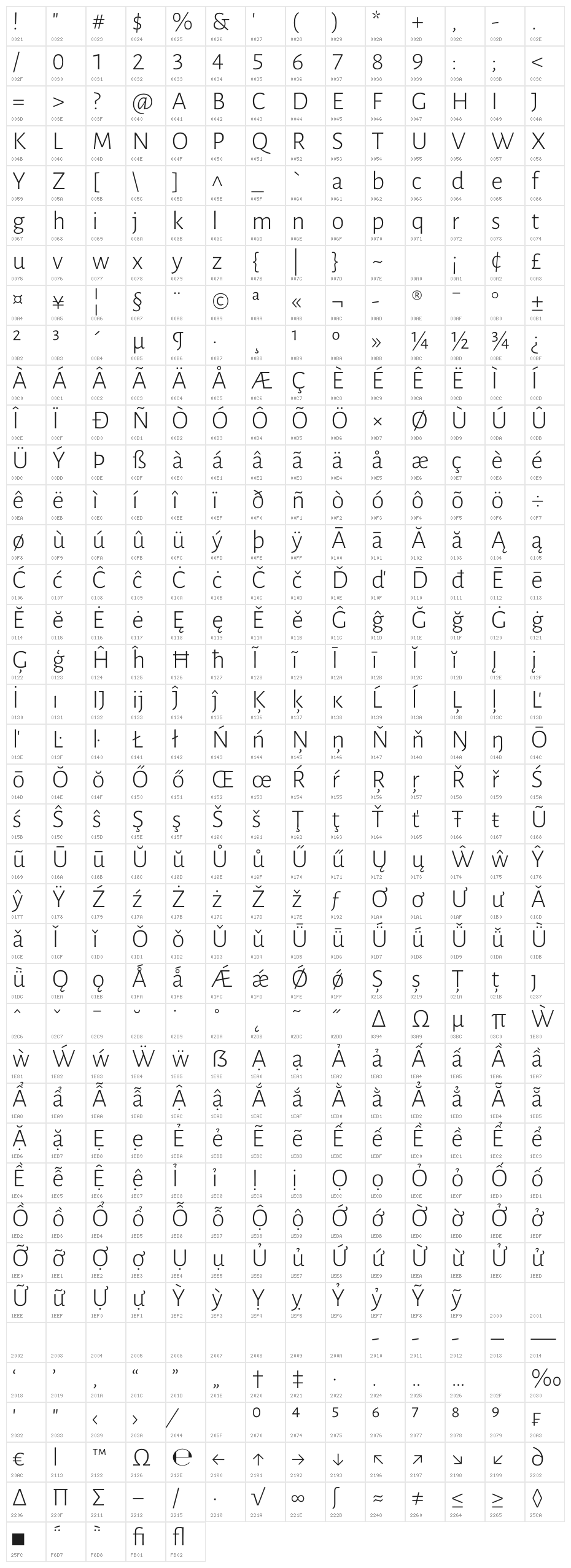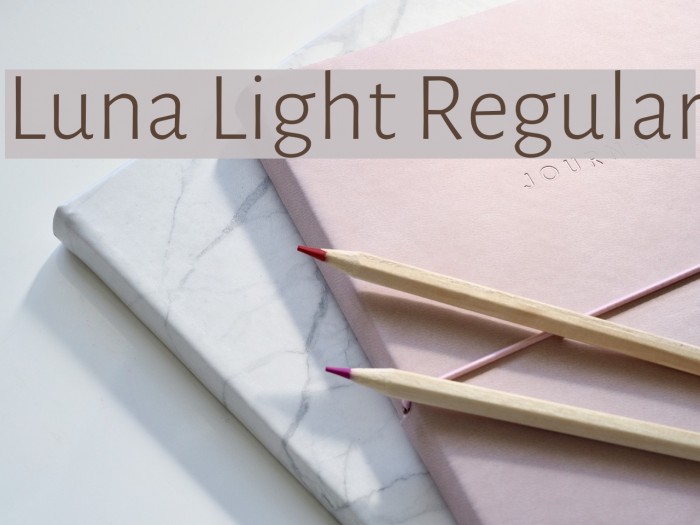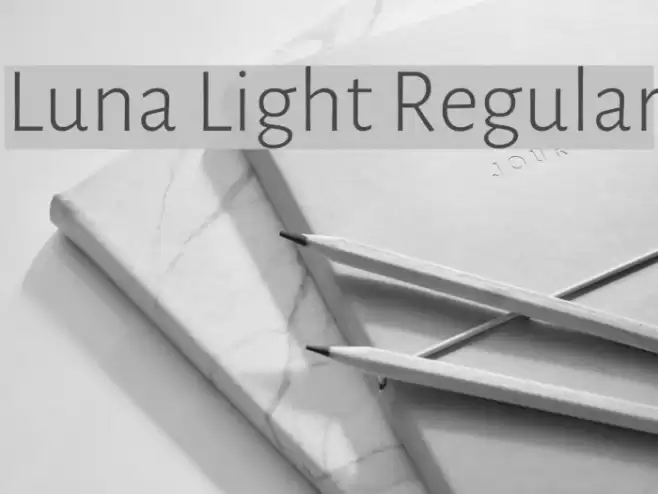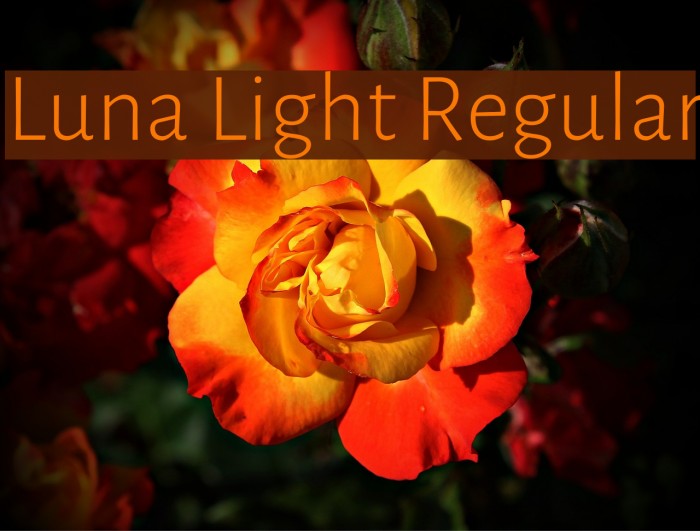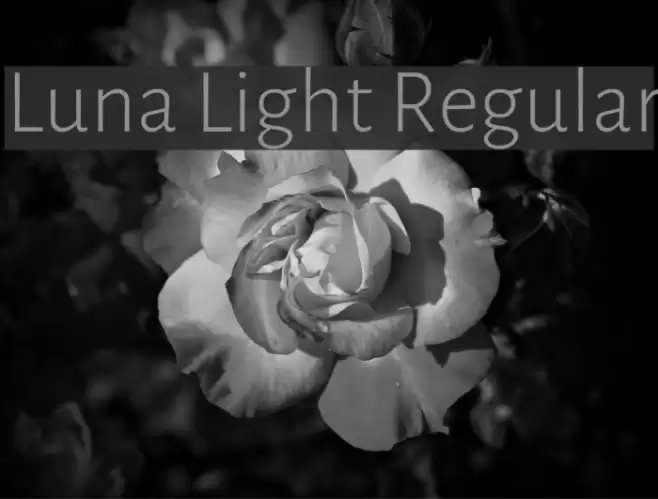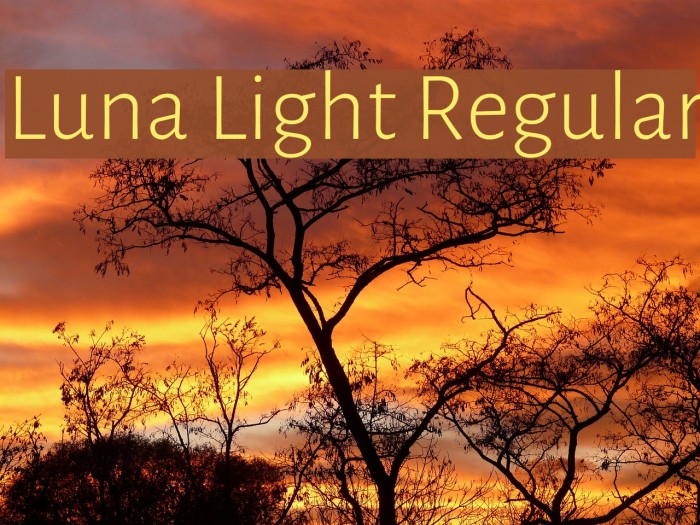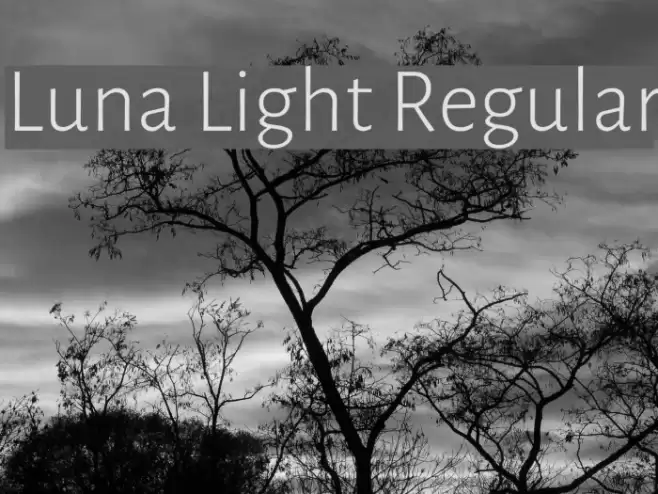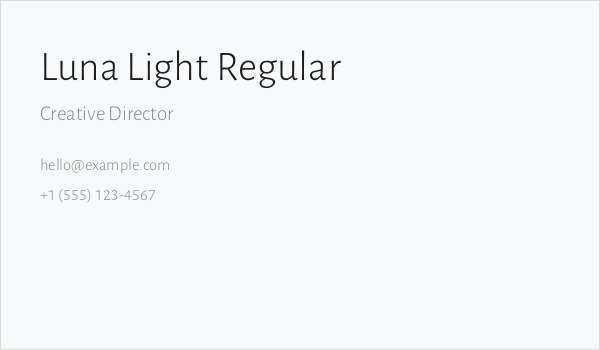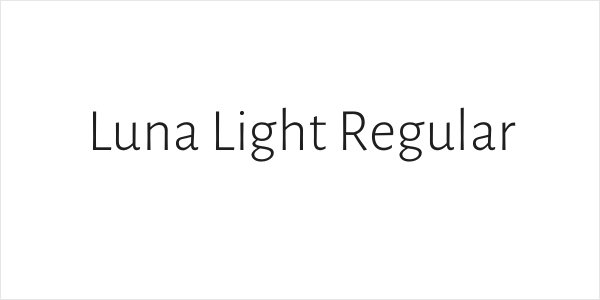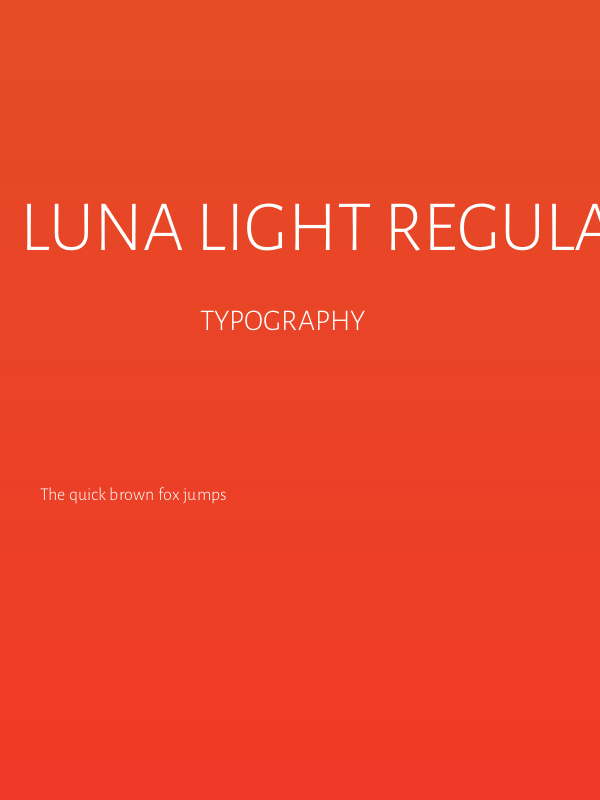
Luna Light Regular Font
Luna Light Regular Description
This font features a clean and modern sans-serif design with a light weight that provides an airy and open feel. The characters are well-proportioned with a consistent stroke width, giving it a uniform appearance. The uppercase letters are tall and elegant, while the lowercase letters maintain a friendly and approachable style. The numerals are clear and easy to read, making them suitable for various applications. Special characters are designed with simplicity in mind, ensuring they blend seamlessly with the rest of the typeface. Overall, this font exudes a sense of professionalism and clarity, making it versatile for both digital and print media.